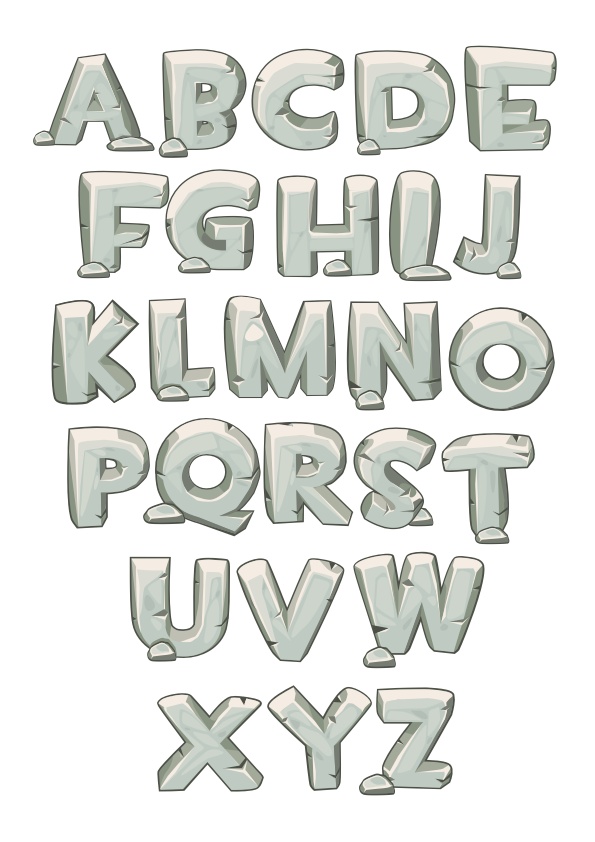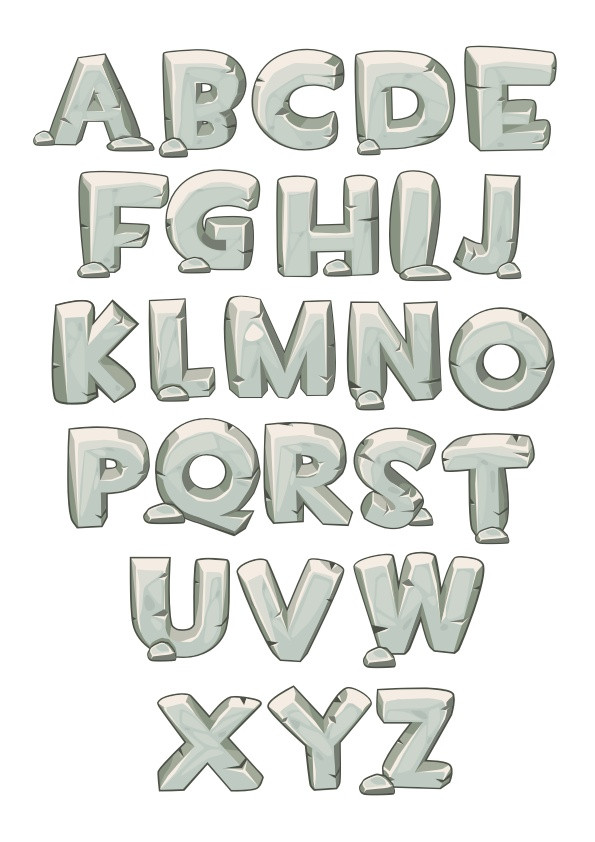
3D Stone Block Alphabet Font Set Free Vector
A complete set of uppercase alphabet letters designed as 3D stone blocks. Each letter has a textured, cracked stone appearance with shading for a cartoon-style effect. Ideal for graphic design projects needing a rugged or natural stone theme.